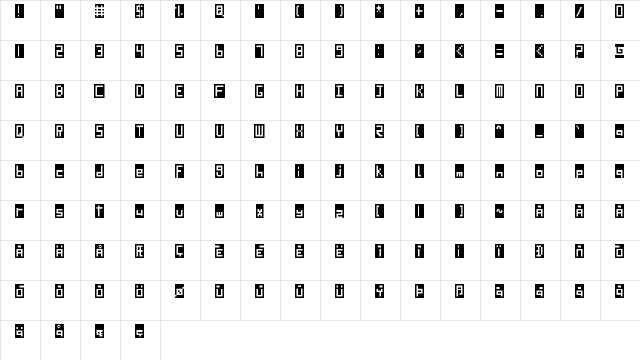
SD LED Screen Regular
| Designer | SD Fontz |
Design Context for SD LED Screen Typeface
SD LED Screen is a composed and adaptable typeface that performs quietly and consistently across a wide range of design contexts.